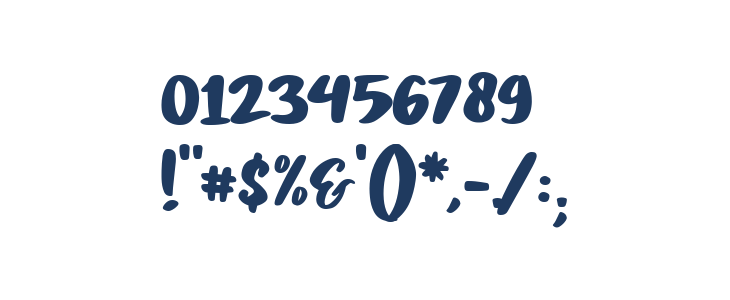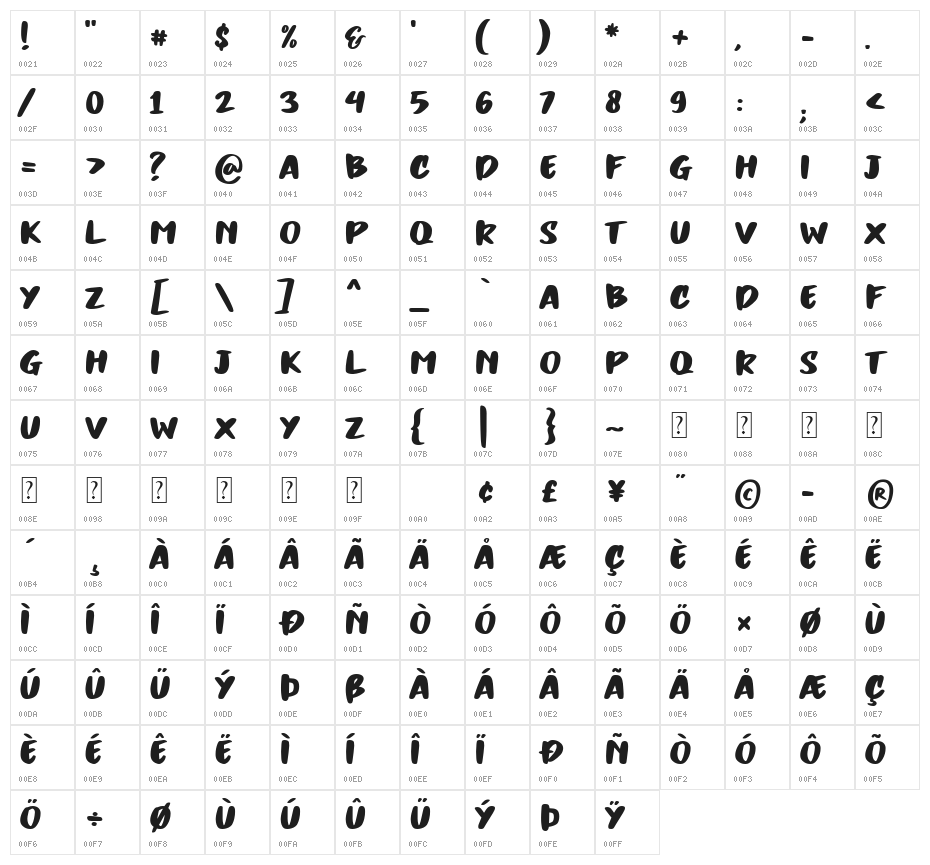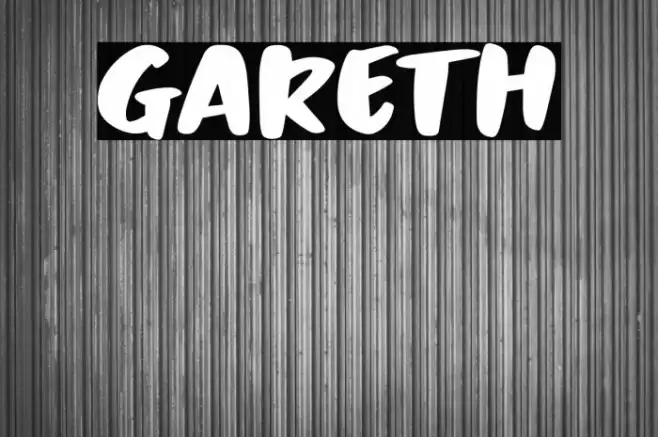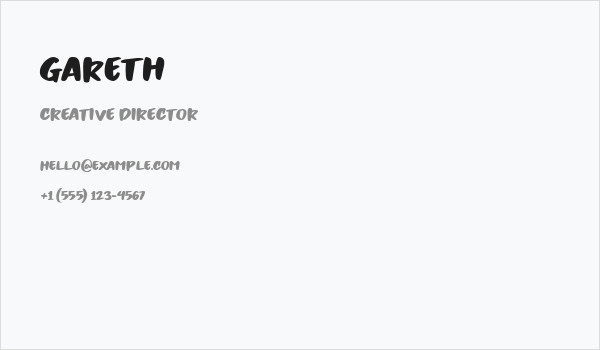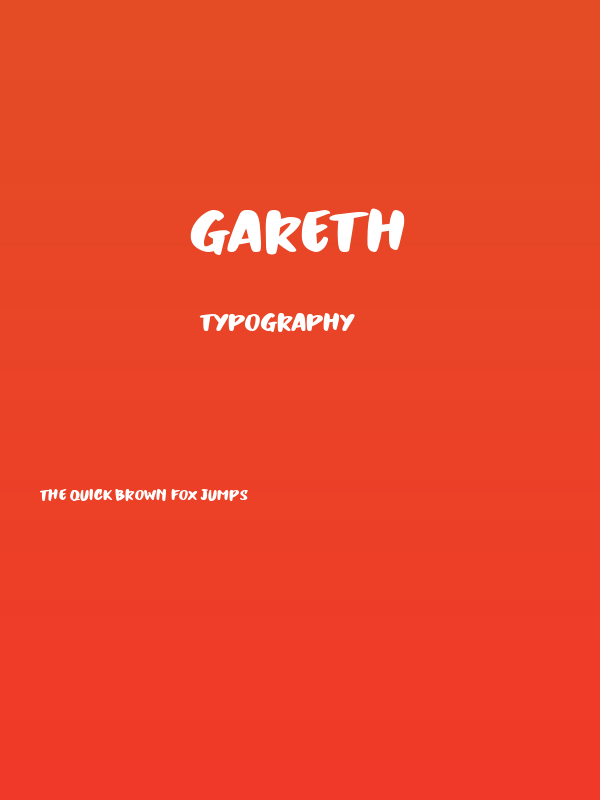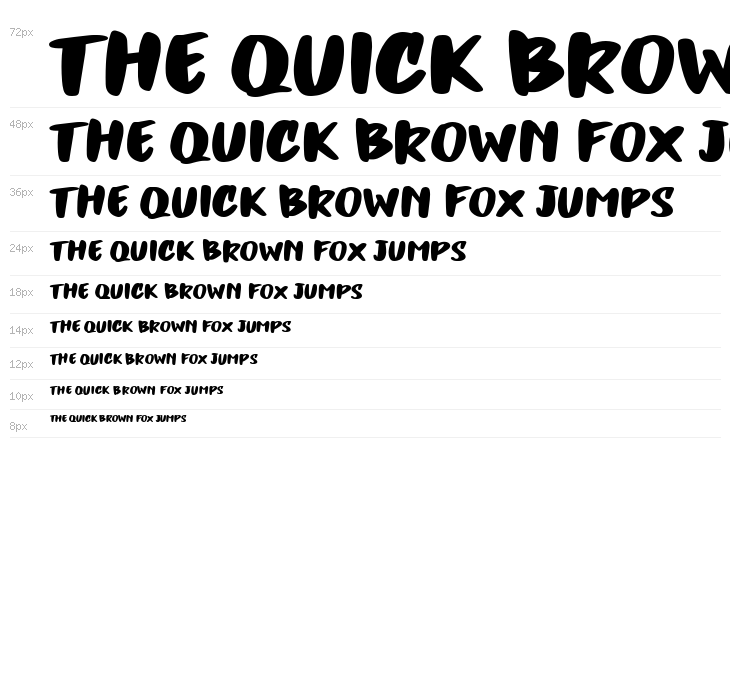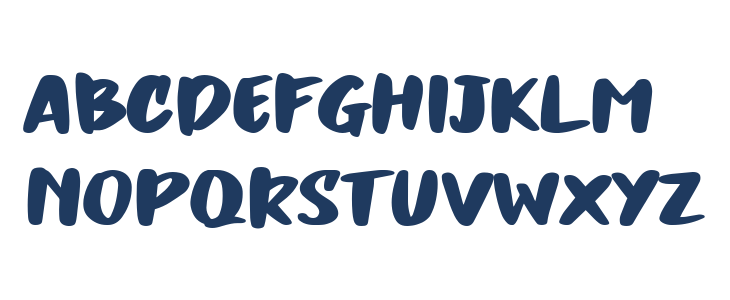
Gareth Font
Gareth Description
This font features a bold and expressive handwritten style, characterized by its thick, rounded strokes and smooth curves. The letters are slightly slanted, giving a dynamic and energetic feel. The uppercase and lowercase letters maintain a consistent style, with a playful and informal appearance. The numbers and special characters are equally bold, ensuring legibility and consistency across all characters. This font is ideal for projects that require a personal touch, such as invitations, posters, or branding materials. Its boldness and unique style make it stand out, while still being easy to read.
| Proposed Projects | Ideal for invitations, posters, branding, and any project needing a personal touch. |